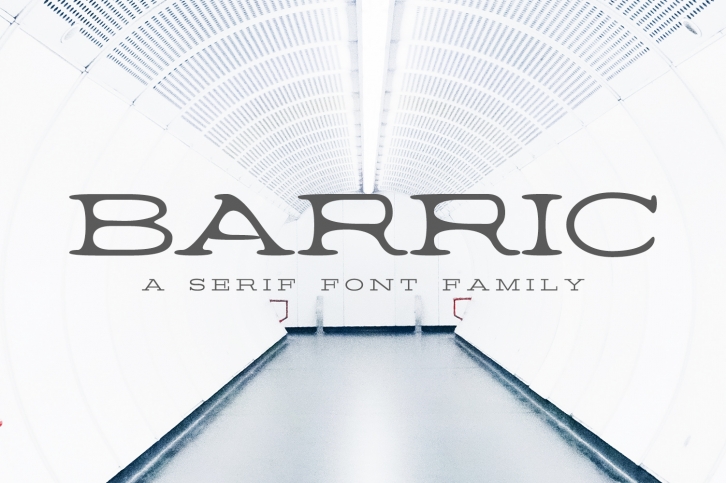
Barric A Serif Family is a gorgeous font that was realeased on October 8, 2018. The font can be used in many style contexts and design environments. Perfect for invitations, magazines, websites, logos, and more! It was designed by Creativetacos and the file size is 9.74 MB. Thanks for checking out this font!